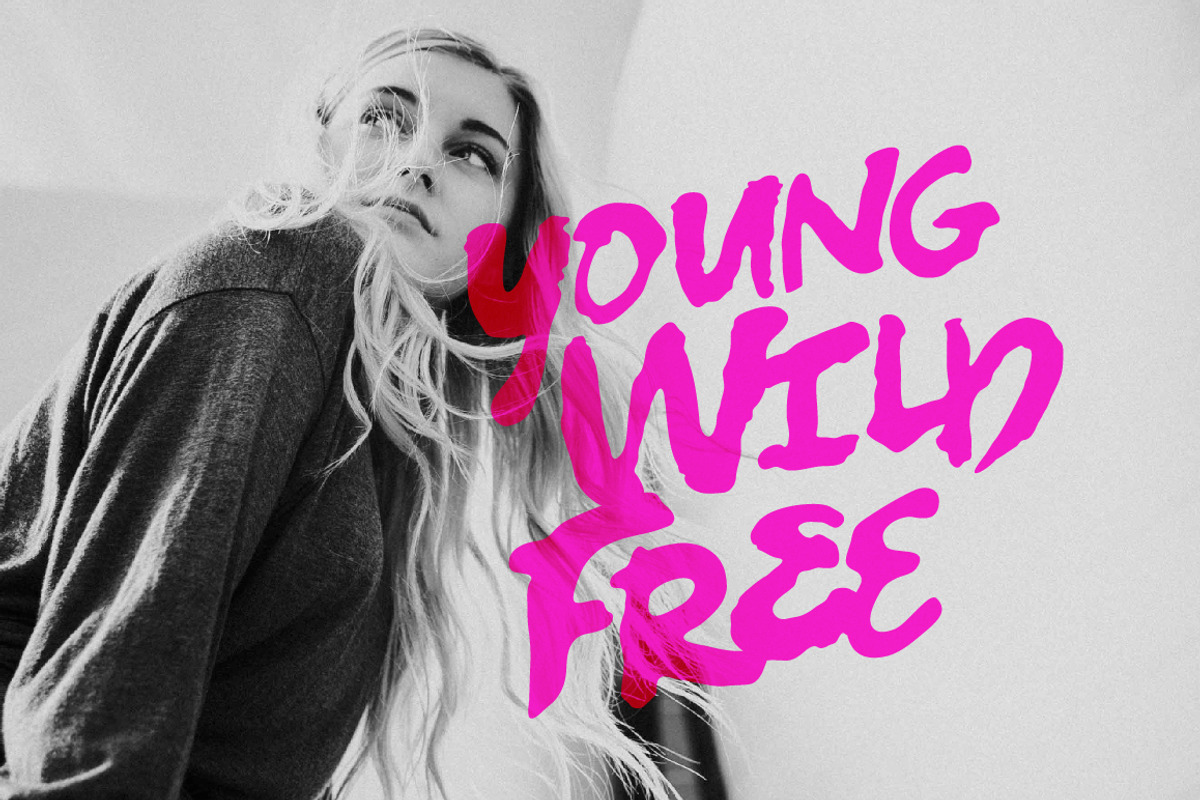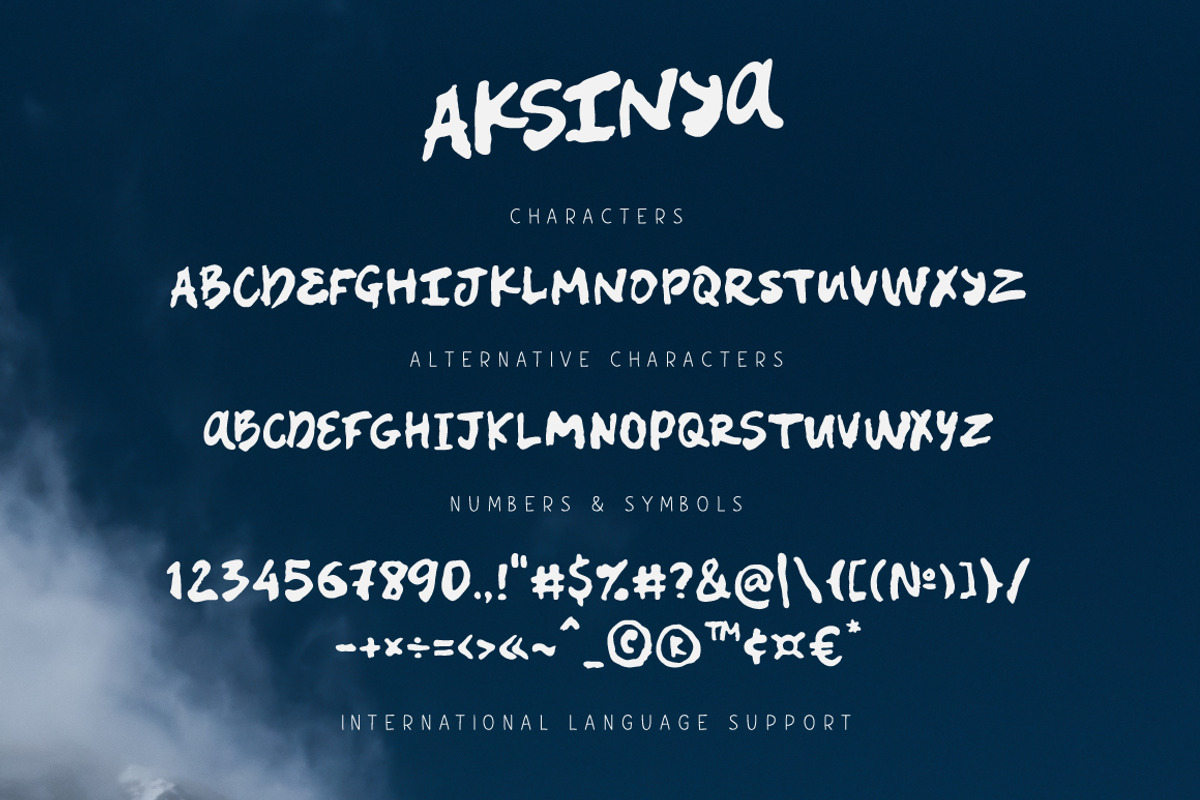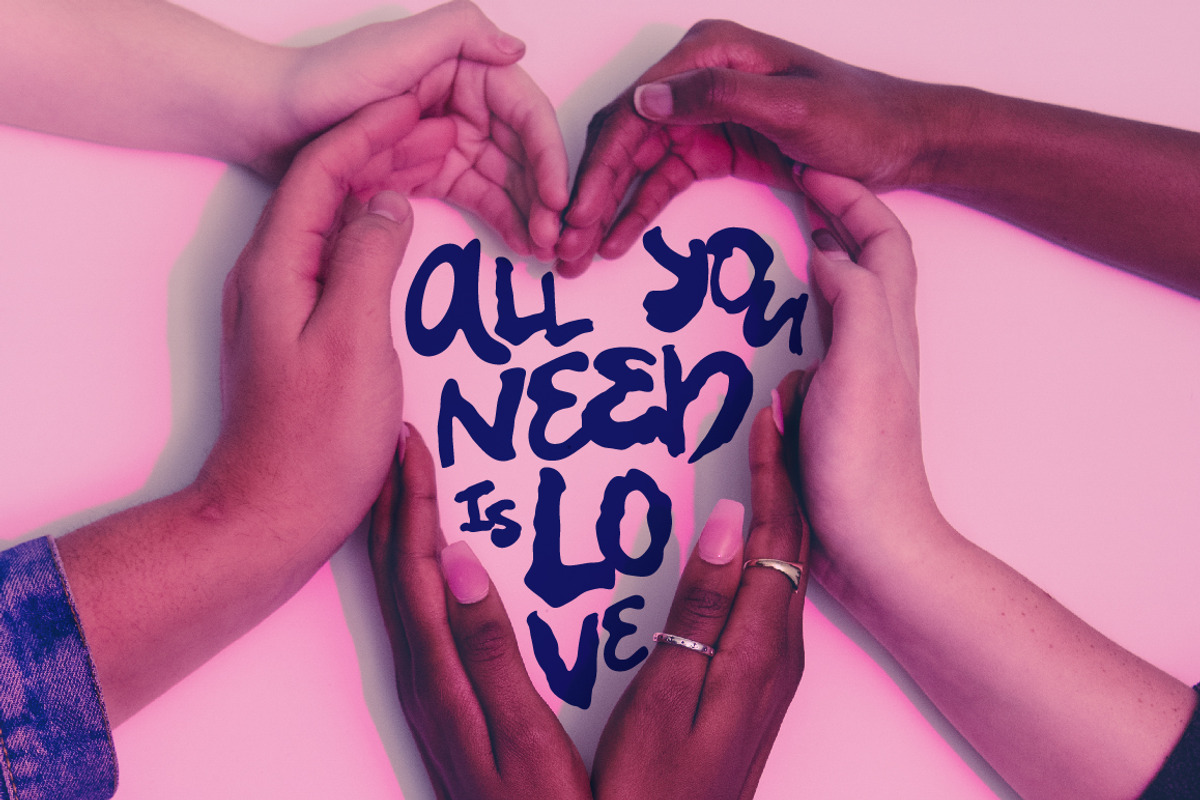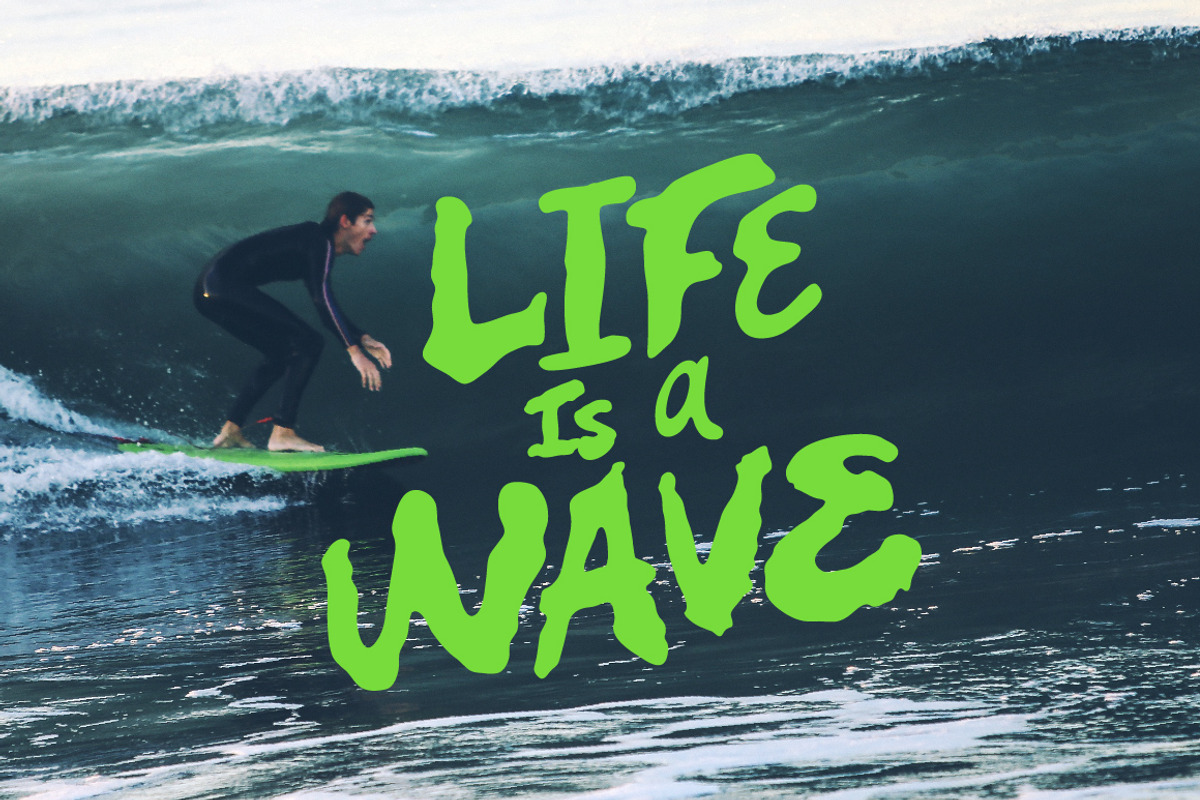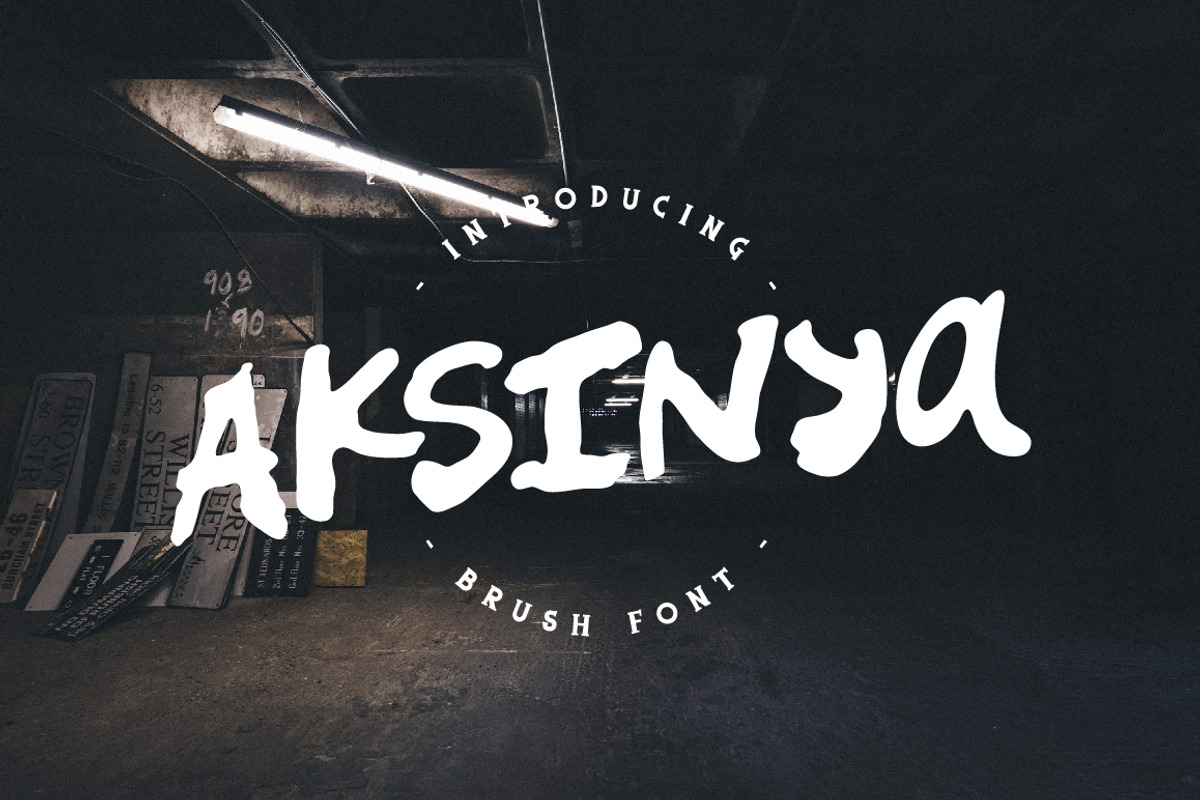
Aksinya Brush Font
Aksinya Brush Font by chekart is a font selected for branding, posters, packaging, typography.
- Aksinya Brush Font comes with all caps uppercase and lowercase characters, alternate characters, large set of punctuation glyphs, numerals a
Why Aksinya Brush Font is worth a look
Aksinya Brush Font by chekart fits naturally into Branding, posters, packaging, typography.